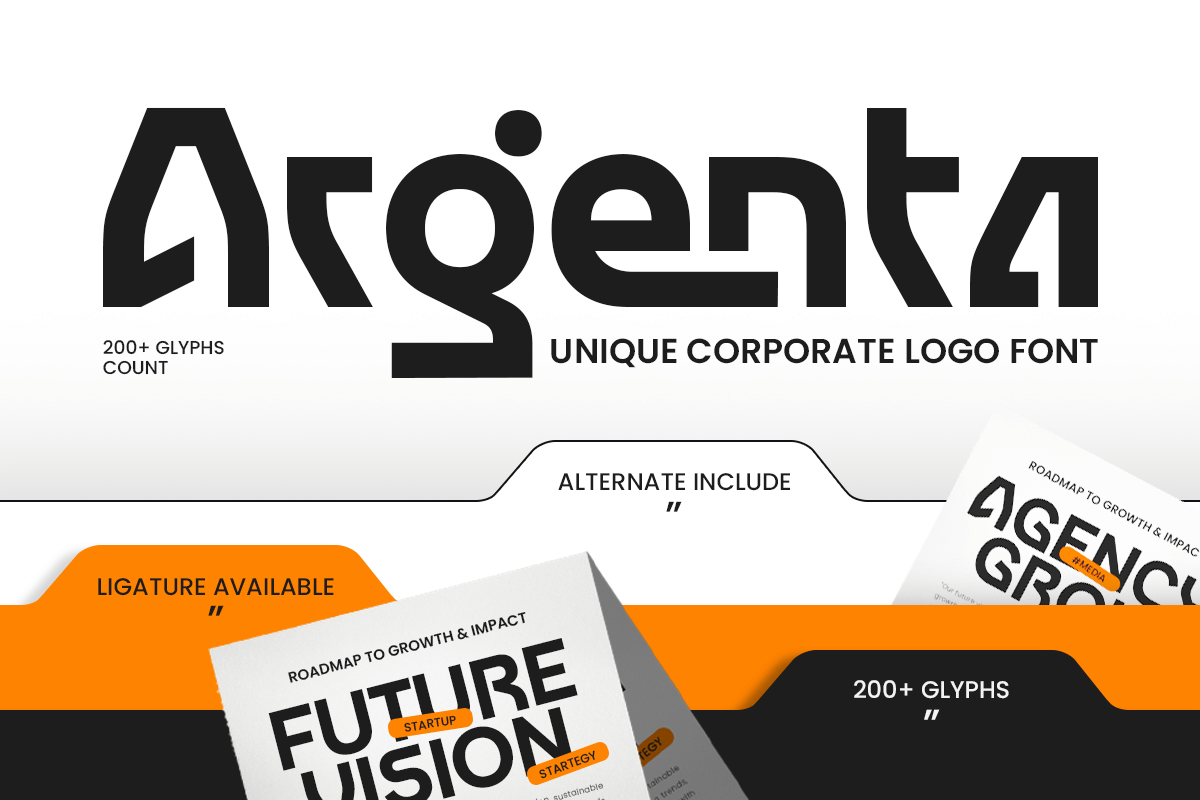
Argenta
-Unique Corporate Logo FontArgenta - Unique Corporate Logo Font
Argenta is a unique corporate logo font designed for modern branding and professional business identities. Ideal for logos, presentations, corporate materials, and digital branding, it combines clean geometric precision with elegant simplicity.
With its balanced and versatile design, Argenta ensures a polished, professional look across both print and digital applications, perfect for companies and creatives seeking a distinctive logo typeface.
Argenta – Unique Corporate Logo Font Features
Clean and modern corporate character set
Perfect for branding, business identity, and professional designs
OpenType features for extra versatility